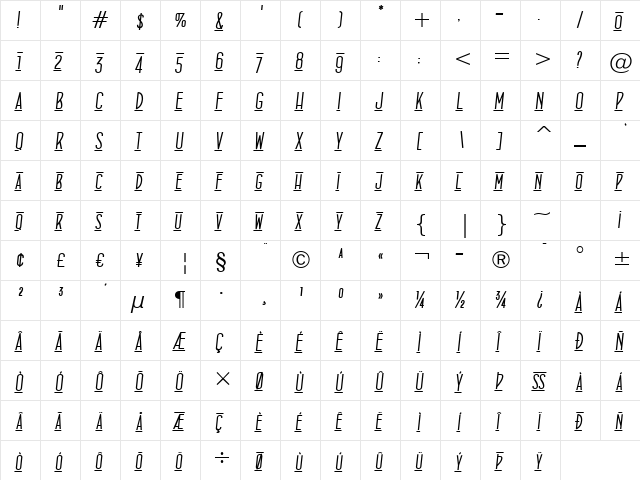
ConcursoItalian BTN Lined Oblique
Design Context for ConcursoItalian BTN Lined Typeface
ConcursoItalian BTN Lined takes a measured approach to typography — its balanced proportions and neutral character make it a reliable workhorse for both digital and print work. The dynamic lean of this cut emphasises speed and emphasis in any layout.
Pro Tip: Use ConcursoItalian BTN Lined for emphasis, pull quotes, and subheadings where its slanted energy can add rhythm to the layout.